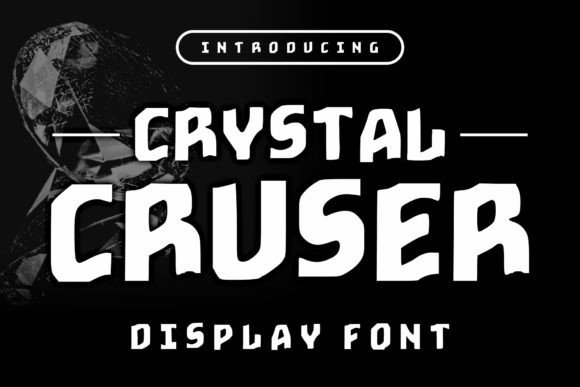
Introducing Crystal Cruser Font: The Ultimate Choice for Fun and Quirky Designs
Are you looking for a font that can add a touch of fun and quirkiness to your designs? Look no further than the Crystal Cruser font. This cool and unique all-caps display font is perfect for designs related to cartoons, children’s games, and any other creation that requires a funky touch.
What is Crystal Cruser Font?
Crystal Cruser is a modern and edgy font that is designed to make a statement. Its unique and bold style makes it perfect for headlines, titles, and any other design element that needs to stand out. The font is an all-caps display font, which means it’s specifically designed to be used in larger sizes, making it ideal for posters, billboards, and other large-format designs.
Key Features of Crystal Cruser Font
- Unique and Quirky Style: Crystal Cruser has a one-of-a-kind style that’s sure to grab attention. Its bold and edgy design makes it perfect for designs that need to stand out.
- All-Caps Display Font: This font is specifically designed to be used in all capital letters, making it perfect for headlines and titles.
- Perfect for Cartoons and Children’s Games: The fun and playful style of Crystal Cruser makes it an ideal choice for designs related to cartoons and children’s games.
- Easy to Read: Despite its bold and edgy style, Crystal Cruser is easy to read, even in larger sizes.
Uses of Crystal Cruser Font
Crystal Cruser is a versatile font that can be used in a variety of designs, including:
- Posters and Flyers: The bold and eye-catching style of Crystal Cruser makes it perfect for posters and flyers.
- Logos and Branding: The unique style of Crystal Cruser makes it an ideal choice for logos and branding.
- Cartoons and Animations: The fun and playful style of Crystal Cruser makes it perfect for cartoons and animations.
- Children’s Games and Toys: The font’s quirky style makes it an ideal choice for children’s games and toys.
- Social Media Graphics: Crystal Cruser can be used to create eye-catching social media graphics, including Facebook posts, Twitter headers, and Instagram stories.
Benefits of Using Crystal Cruser Font
Using Crystal Cruser font in your designs can have several benefits, including:
- Increased Visibility: The bold and eye-catching style of Crystal Cruser can help increase visibility and grab attention.
- Improved Brand Recognition: The unique style of Crystal Cruser can help improve brand recognition and make your brand stand out.
- Enhanced Creativity: The fun and playful style of Crystal Cruser can help enhance creativity and add a touch of quirkiness to your designs.
Tips and Tricks for Using Crystal Cruser Font
Here are some tips and tricks for using Crystal Cruser font:
- Use it in Large Sizes: Crystal Cruser is designed to be used in larger sizes, so use it in sizes 24 points or larger.
- Experiment with Colors: Experiment with different colors to find the one that works best with your design.
- Pair it with Other Fonts: Pair Crystal Cruser with other fonts to create a unique and interesting design.
- Use it for Headlines: Use Crystal Cruser for headlines and titles to grab attention.
Crystal Cruser is a cool and unique all-caps display font that’s perfect for designs that require a funky touch. Its bold and eye-catching style makes it ideal for posters, logos, cartoons, and children’s games. With its ease of use and versatility, Crystal Cruser is a great addition to any designer’s font collection.